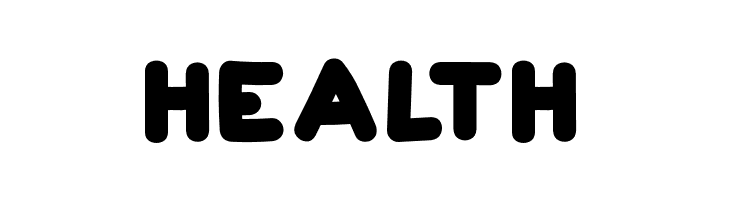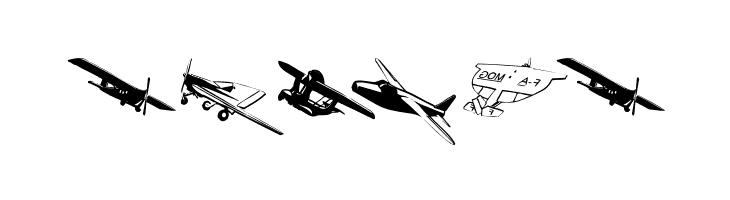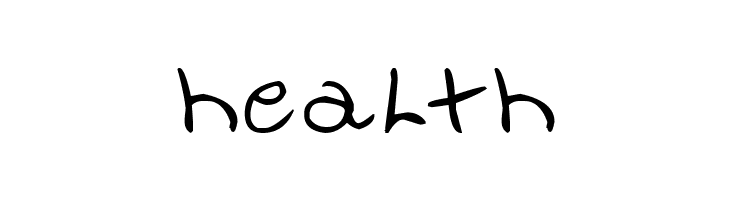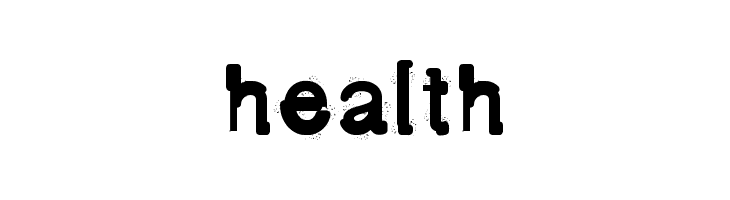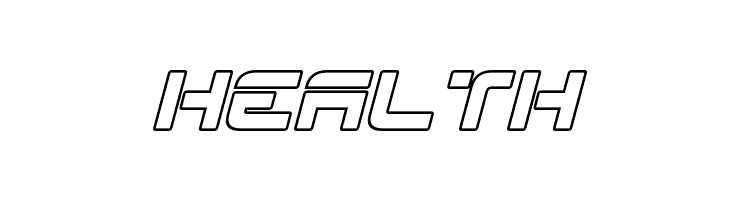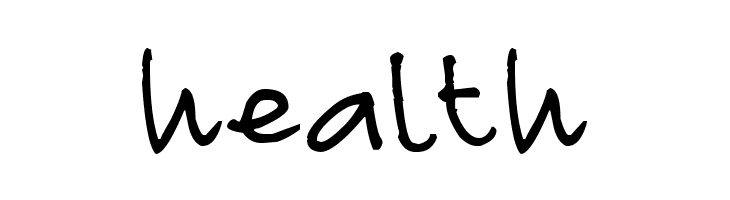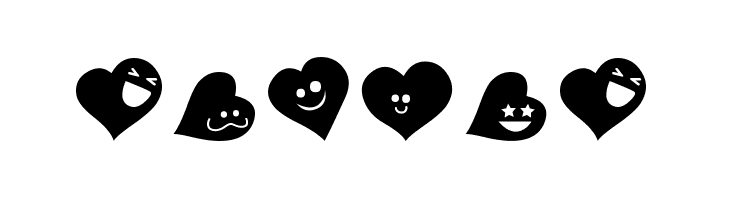
• Floralis
• FLORIAN
A bold, playful font with rounded edges and a friendly appearance.
• FluffyHeartsDing
A decorative dingbat font with playful heart designs and whimsical elements.
• Fluid Maska
A bold, textured font with a modern, industrial feel.
• Fly High Demo
A playful, handwritten font with thin, irregular strokes and a whimsical style.
• FlyingOne
A display font composed of airplane illustrations as glyphs.
• Flynn
A bold, futuristic font with geometric shapes and a tech-inspired design.
• Flynn Hollow Italic
A futuristic, geometric, hollow italic font with sharp, angular edges.
• FO-Mic's Hand
A playful, handwritten font with bold strokes and a casual, whimsical style.
• Font linda.sciutto
A playful, casual handwritten font with dynamic, irregular strokes.